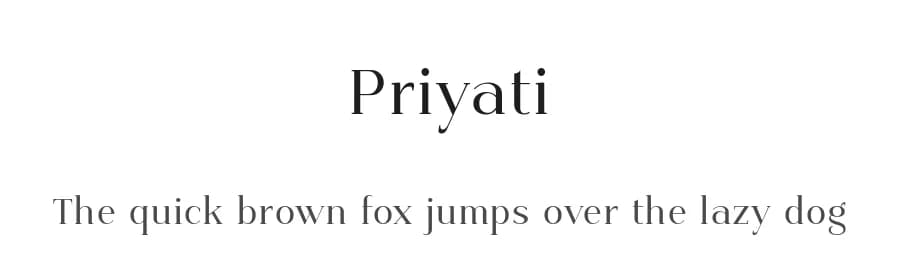
About Priyati Font
Priyati Font is a versatile serif font that works for both headings and body text. Pair it with a contrasting sans-serif or slab serif font to add visual interest and a clear distinction between titles and body copy.
Priyati Font
by Jipatype